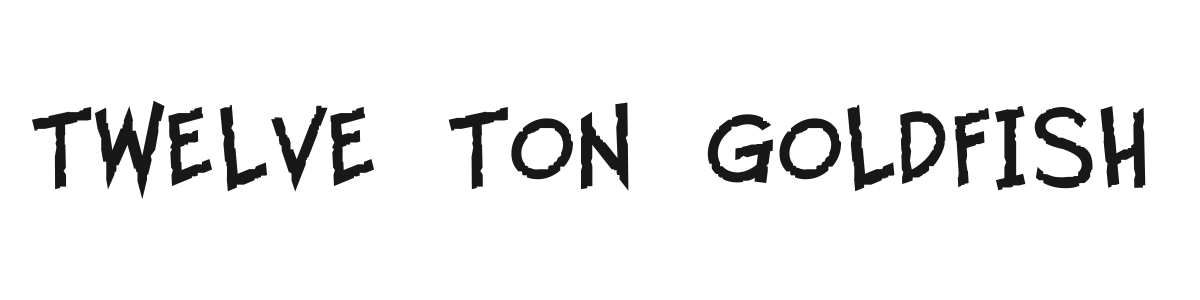
Twelve Ton Goldfish
Twelve Ton Goldfish is a bold, uppercase handwritten face from Blambot with the rough, slightly uneven quality of a thick marker pressed hard against paper. The letterforms have a casual, quirky energy that feels spontaneous without losing legibility, landing it squarely in comic lettering and poster territory. Best kept to headlines and short text where its chunky, hand-drawn personality can do the heavy lifting.